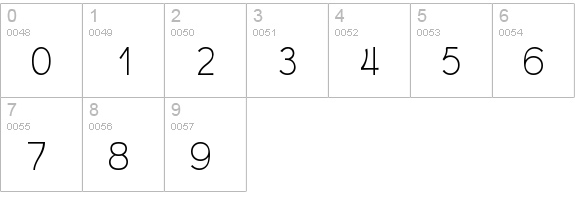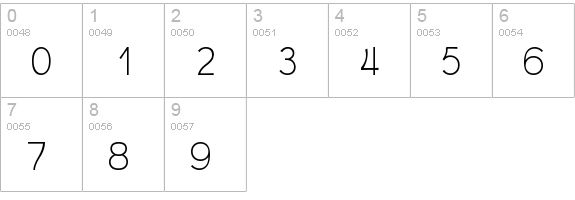
Whipsmart Font Details
Introducing Whipsmart, a captivating and versatile font that will add a touch of elegance and sophistication to any design project. With its sleek lines and modern appeal, Whipsmart is the perfect choice for everything from logos and branding to headlines and invitations. This font is not only visually stunning, but it also offers a seamless reading experience. Its legibility and clarity make it an excellent choice for both print and digital media. Whether you're designing a magazine layout or creating a website, Whipsmart will ensure that your content is easy to read and visually appealing. But what sets Whipsmart apart from other fonts is that it is free. That's right, this incredible font is freely available to download at FontsMarket.com. We believe that great design should be accessible to everyone, and that's why we're excited to offer Whipsmart at no cost. Now, you can elevate your designs without breaking the bank. Whipsmart also comes with a wide range of weights and styles, allowing you to experiment and find the perfect fit for your project. From bold and impactful to sleek and minimal, Whipsmart has it all. With its extensive versatility, this font will effortlessly adapt to any design concept and help you create stunning visual compositions. Not only is Whipsmart visually captivating, but it's also incredibly easy to work with. Its clean and well-organized character set makes it a breeze to navigate and find the perfect letterforms for your design. Plus, its wide language support ensures that your message can reach a global audience. So why wait? Download Whipsmart today from FontsMarket.com and unlock a world of design possibilities. With its exceptional quality, versatility, and the fact that it's free, Whipsmart is a must-have font for any designer or creative professional. Elevate your designs, captivate your audience, and leave a lasting impression with Whipsmart.